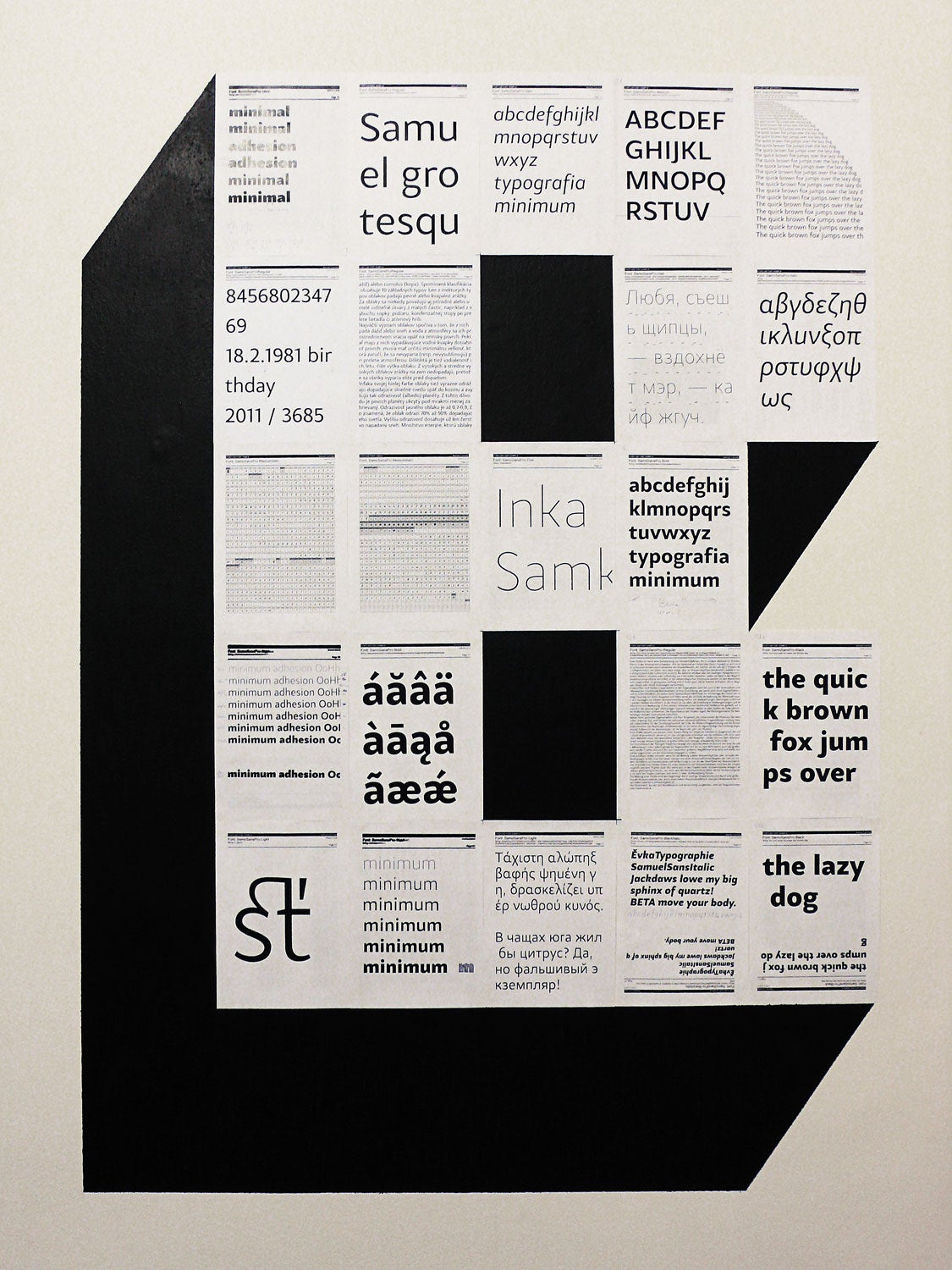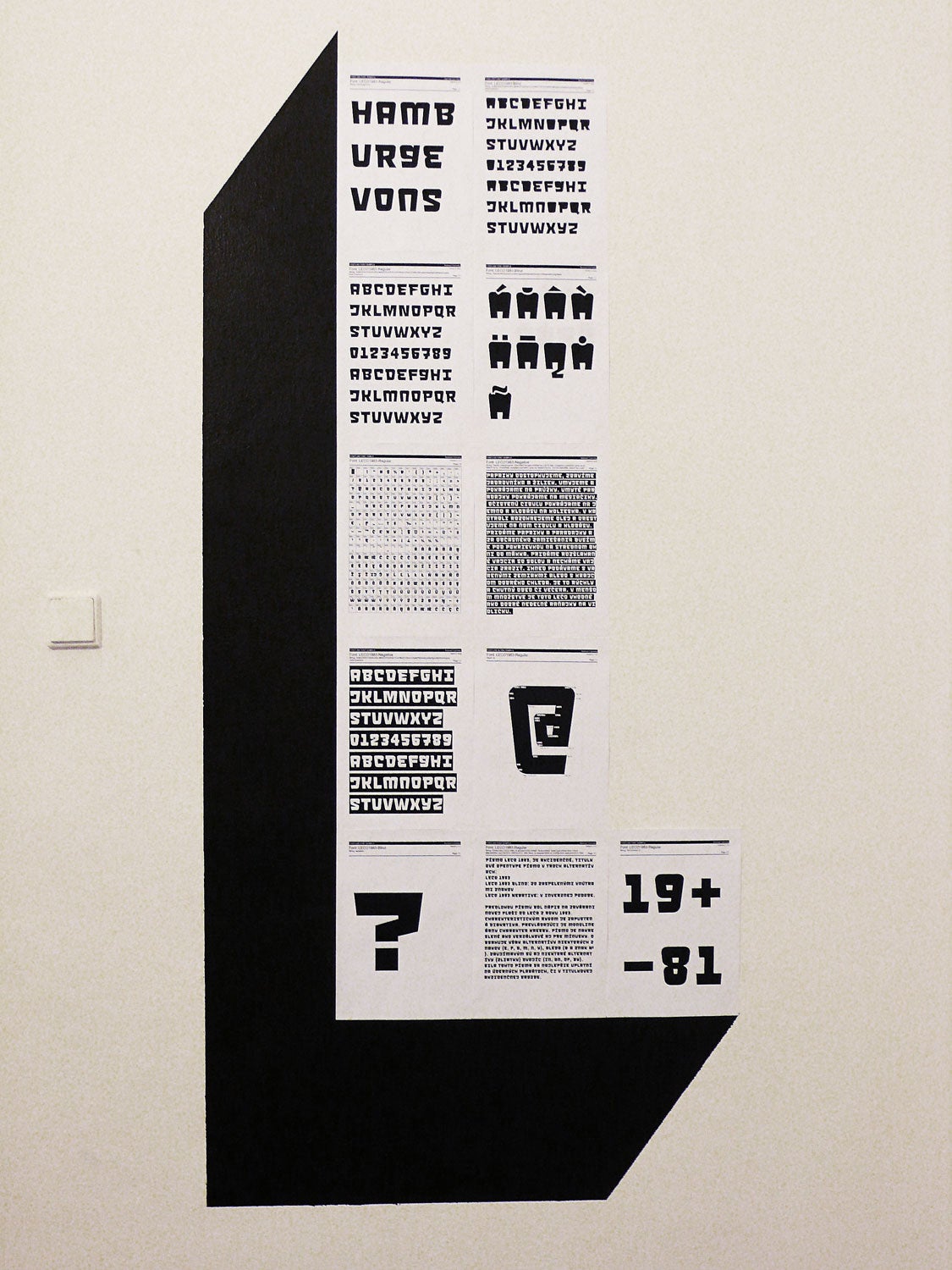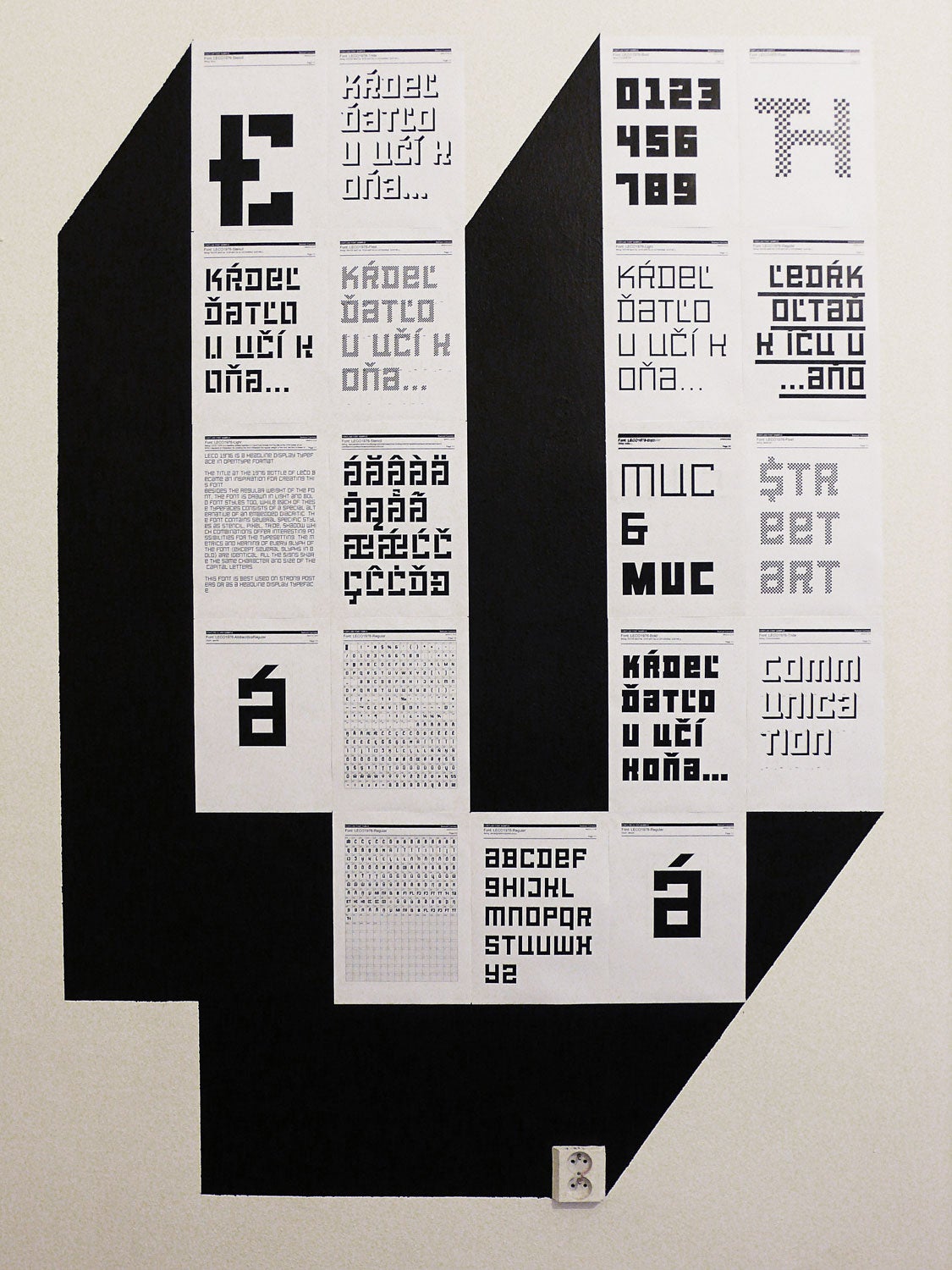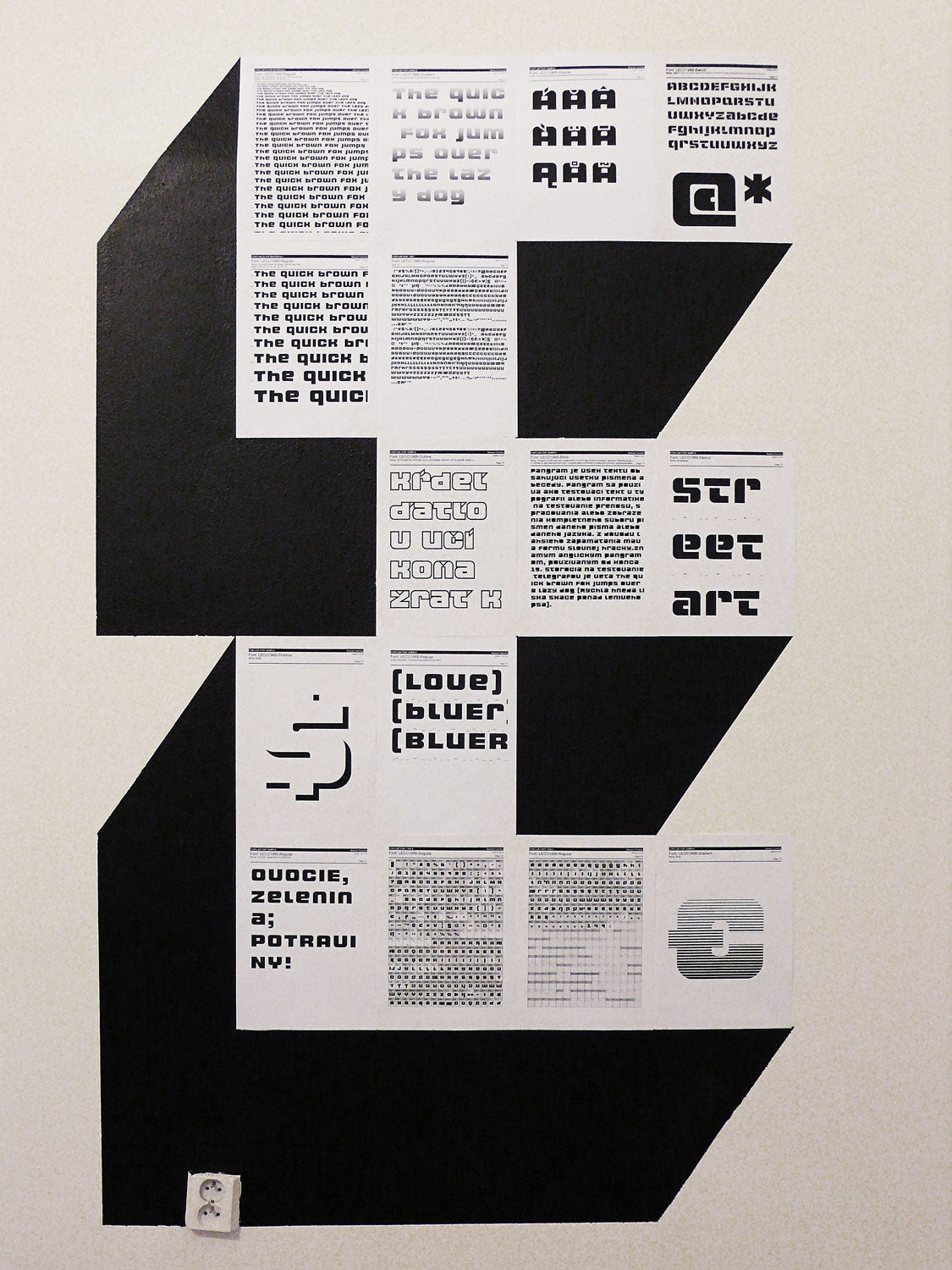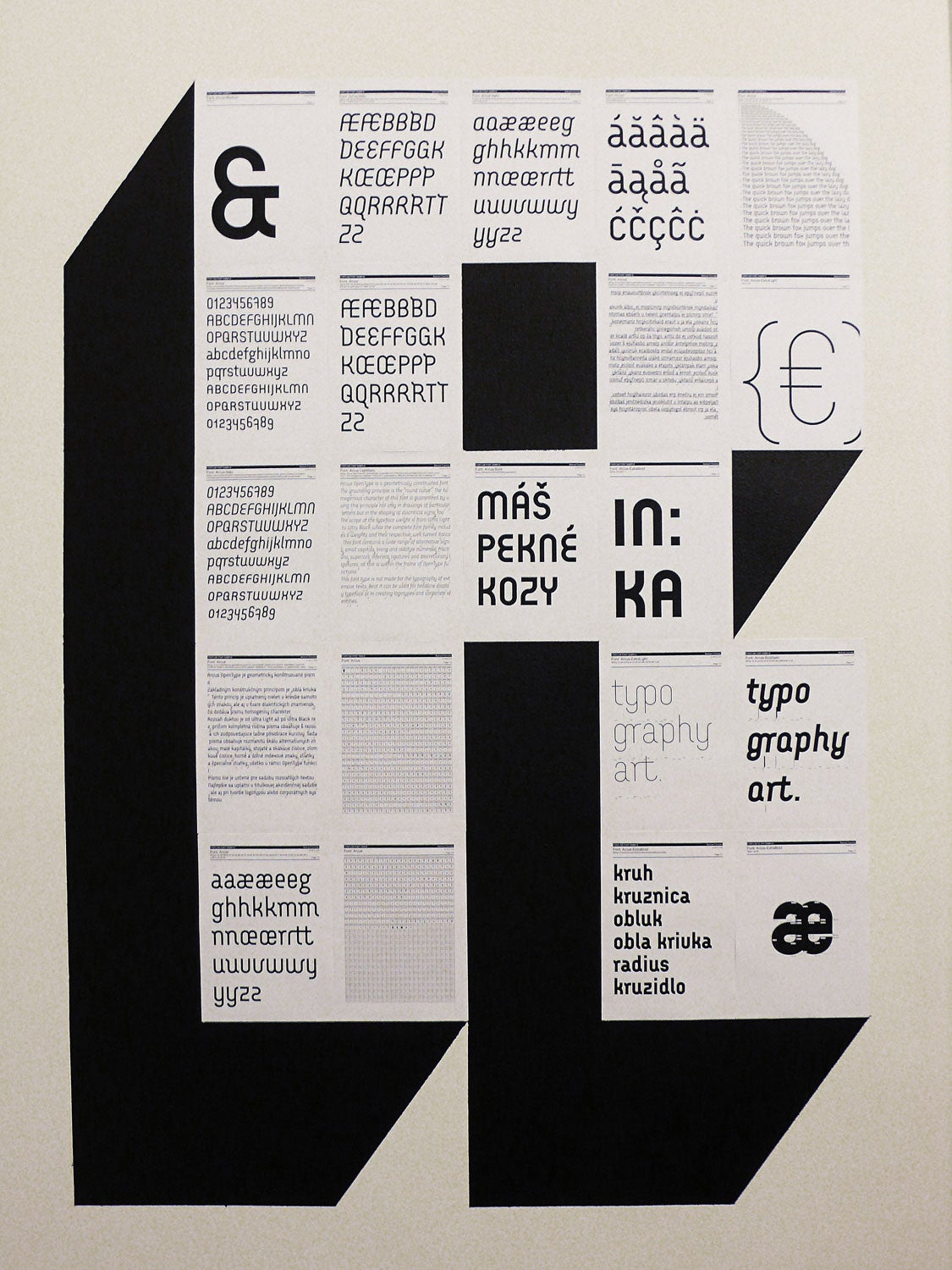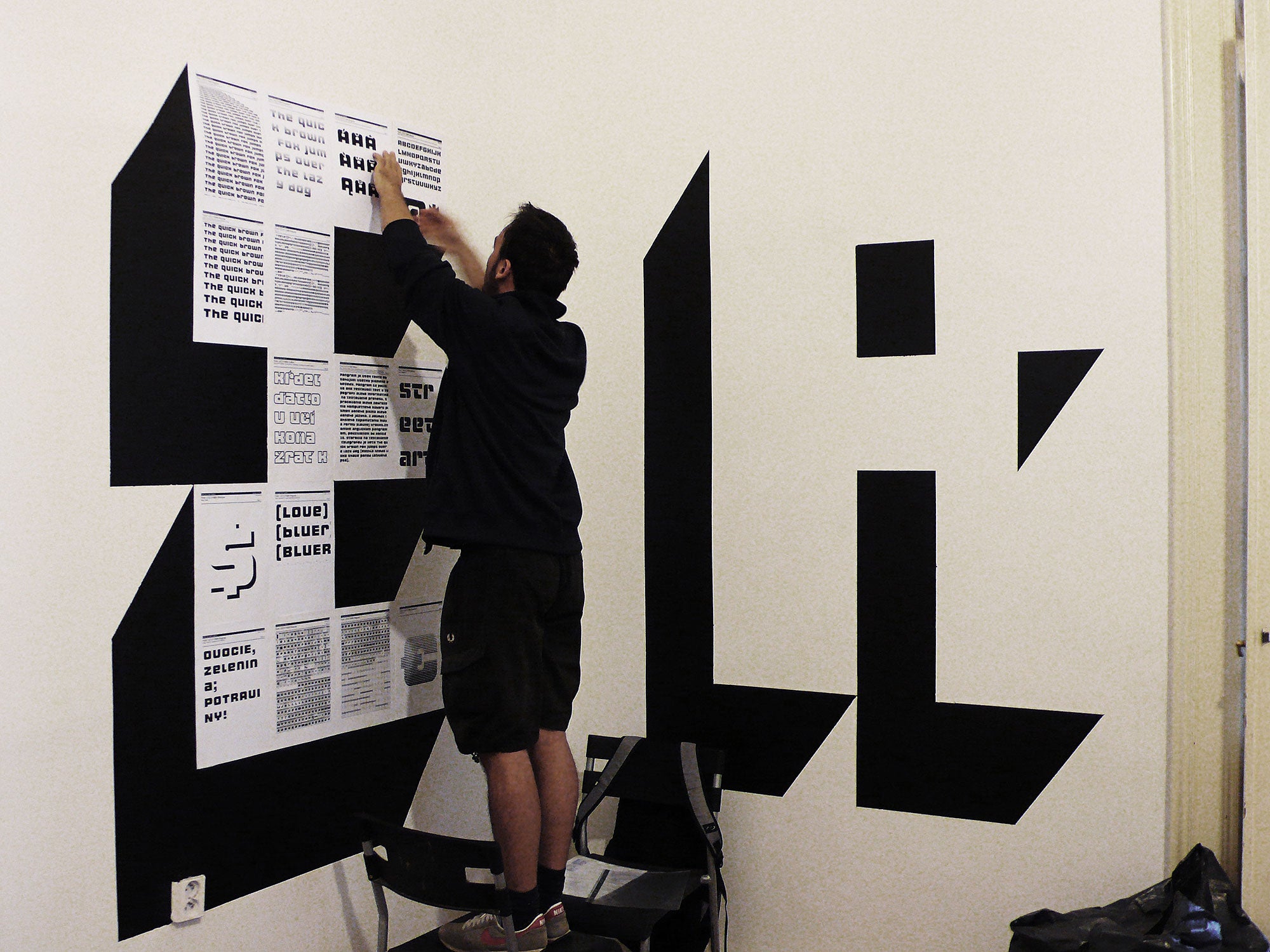
Kŕdeľ ďatľov učí koňa...
The name of the exhibition literally translates as “A flock of woodpeckers is teaching a horse...” and is a part of the Slovak language pangram. a pangram is a testing text used in typography to present a complete set of letters in a given language. Samo Čarnoký’s exhibition shows the endless process of creating an authorial typeface by showing samples from the work in progress. Using five letters of the alphabet — B L U E R (known as his street name in the streetart community), the author presents his five finished and published typefaces. In this way, he joins his “private” typeface work with his artistic works created in connection to urban spaces.
Samo Čarnoký: Kŕdeľ ďatľov učí koňa… • 10.—31. 8. 2012 • Pyecka Gallery • Košice • typefaces: Samo Sans Pro, LECO 1983, LECO 1976, LECO 1988, Arcus • © Samuel Čarnoký (2012)